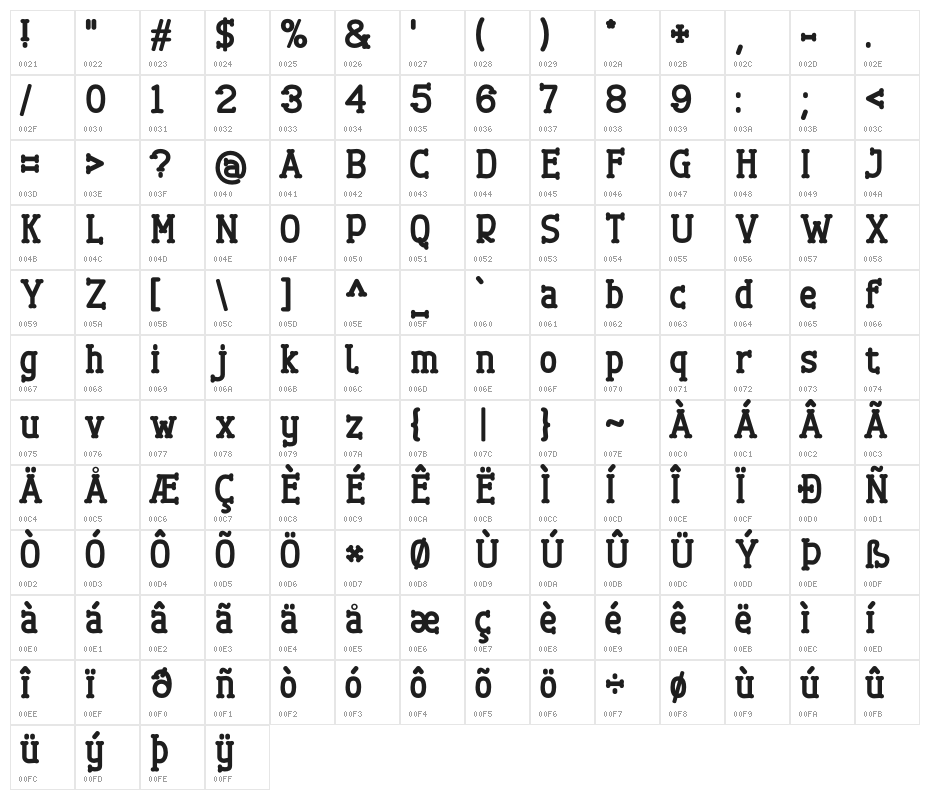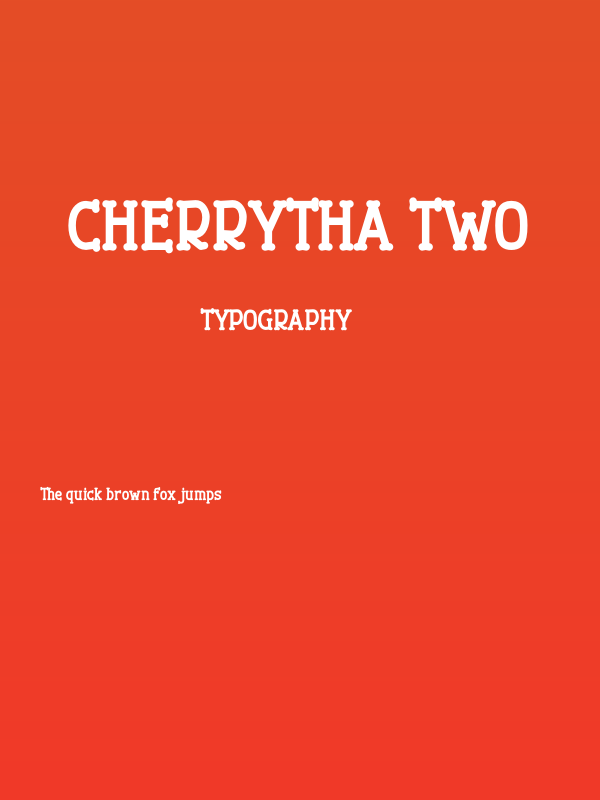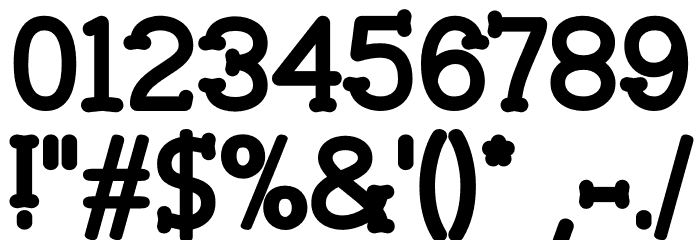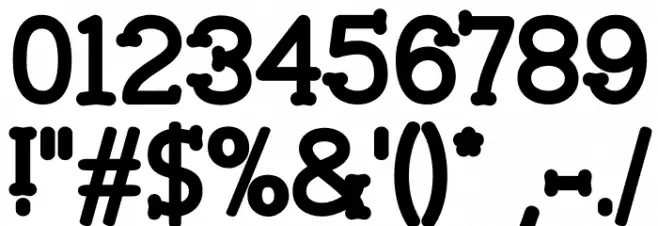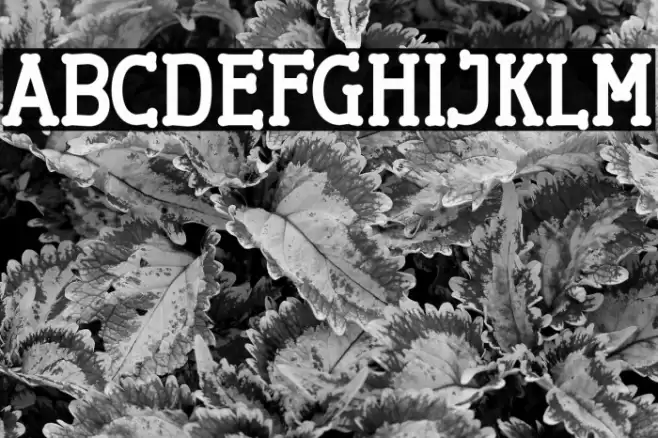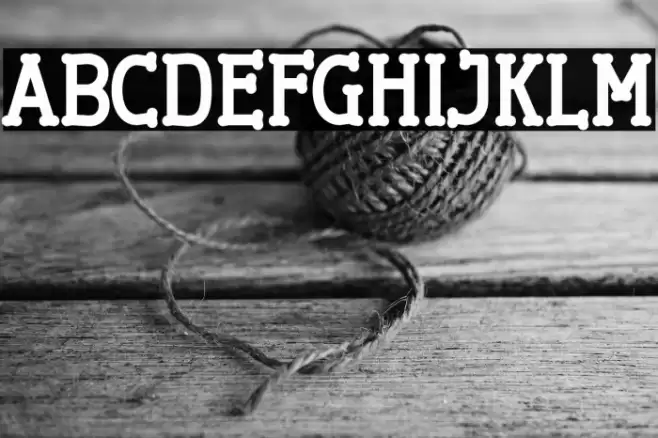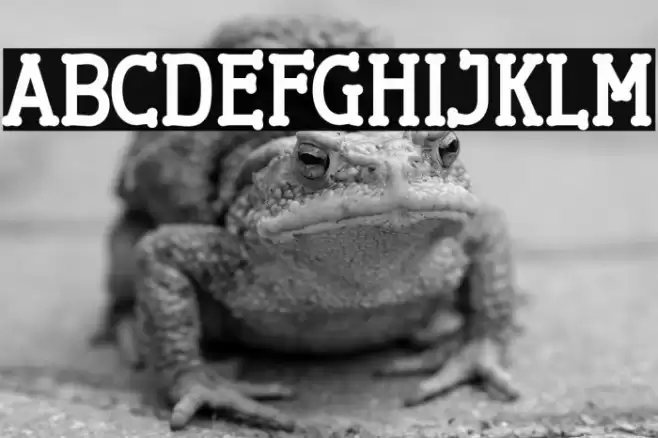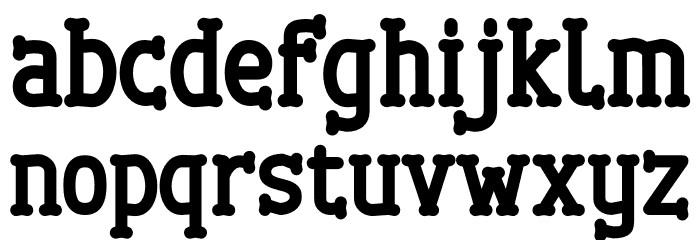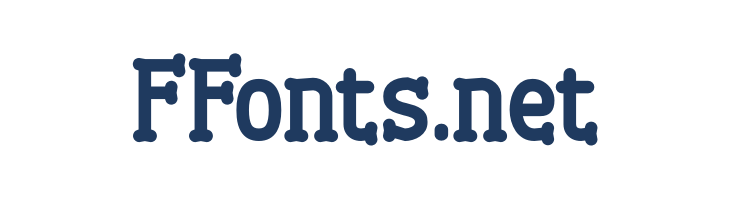
Cherrytha Two Font
Cherrytha Two Description
This font features a playful and bold design with rounded edges and a unique, bubbly appearance. The characters are thick and have a consistent weight throughout, giving them a strong presence. The rounded terminals and slightly exaggerated curves add a whimsical touch, making it stand out as a decorative option. The font maintains a uniform width across all characters, ensuring readability while retaining its distinctive style. It is well-suited for creative projects that require a fun and engaging typeface.
| Proposed Projects | Ideal for children's books, playful branding, posters, and creative invitations. |